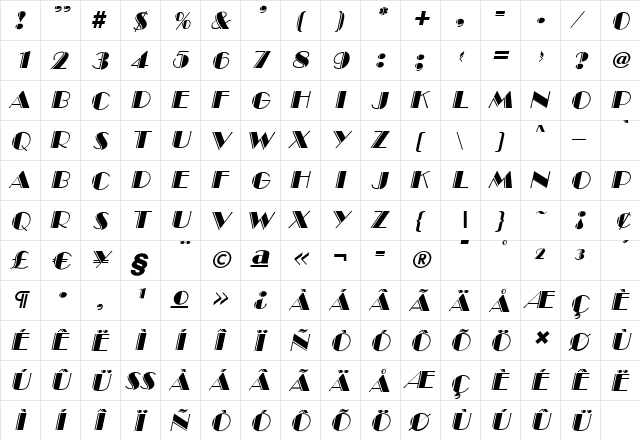
AnnaBeckerEngraved Italic
Design Context for AnnaBeckerEngraved Typeface
AnnaBeckerEngraved is built around its visual character rather than neutral utility — its distinctive forms are designed to make an impression at display sizes. The dynamic lean of this cut emphasises speed and emphasis in any layout.
Font Pairing: Pair with a clean neutral sans-serif for body copy to let AnnaBeckerEngraved's character lead without overwhelming the composition.
Pro Tip: Use AnnaBeckerEngraved exclusively at display sizes — it was designed to be seen, not read at length. Let a neutral companion handle body copy.